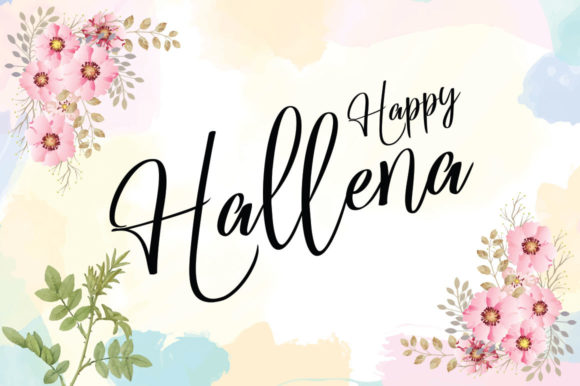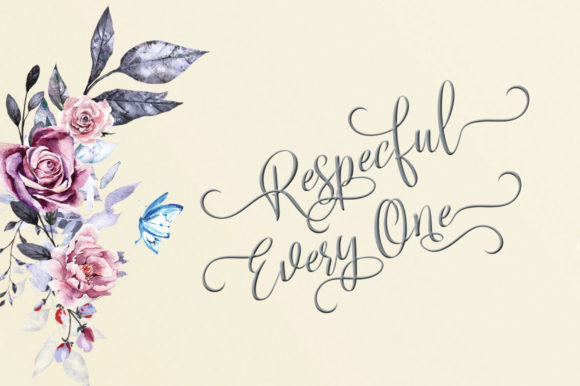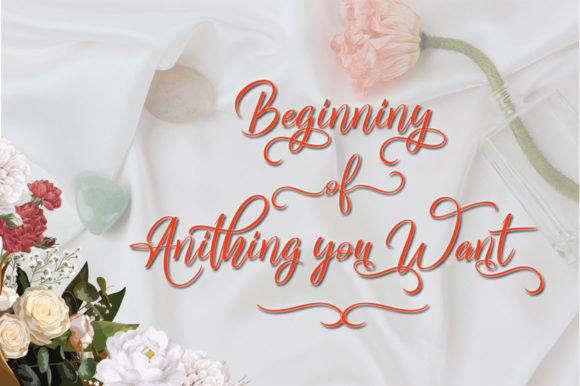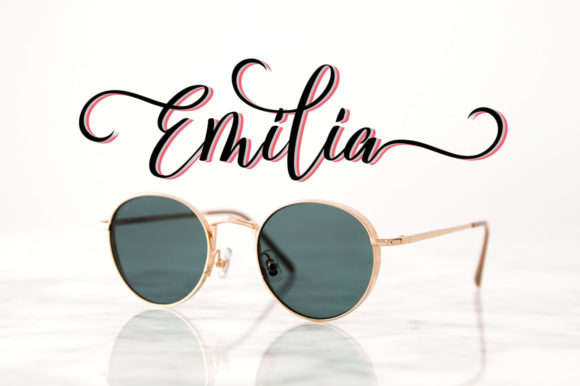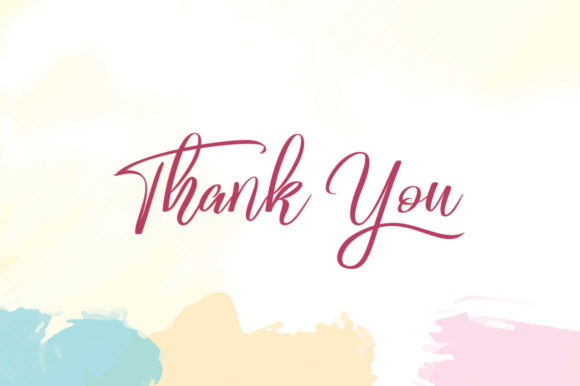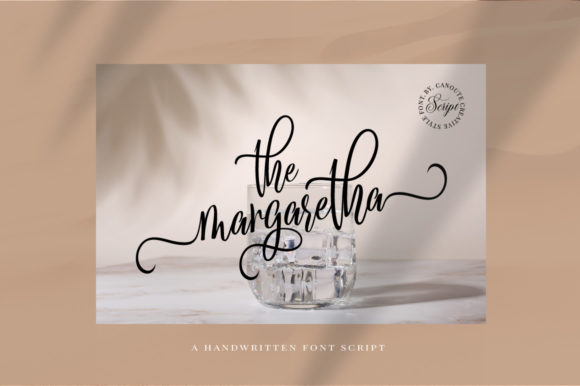
Introduction to Natalia Smitt Font
Natalia Smitt is a delicate and elegant handwritten font.
It looks beautiful on a variety of designs requiring a personalized style, such as wedding invitations, thank you cards, weddings, greeting cards, logos and so on This font is PUA encoded which means you can access all of the glyphs and swashes with ease.